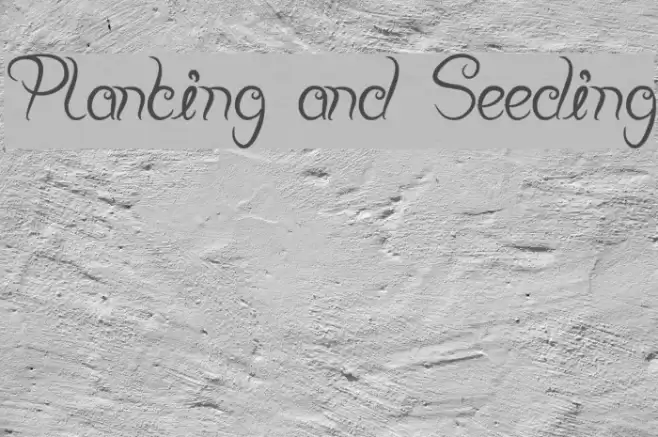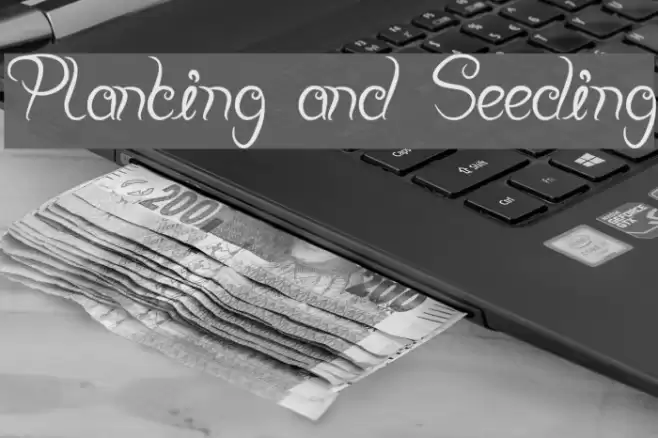
Planting and Seeding Font
Planting and Seeding Description
This font features an elegant and decorative script style with intricate curves and flourishes. The uppercase letters are characterized by sweeping lines and loops, giving them a sophisticated and artistic appearance. The lowercase letters maintain a consistent flow, with unique embellishments that add to the font's charm. The overall design is ornate, making it suitable for projects that require a touch of elegance and creativity. The numbers and special characters are designed to match the elaborate style of the alphabet, ensuring a cohesive look across all text elements.
An elegant and decorative script font with intricate curves and flourishes from Uncategorized fonts.
- Proposed Projects: Ideal for wedding invitations, greeting cards, branding, and decorative headlines.